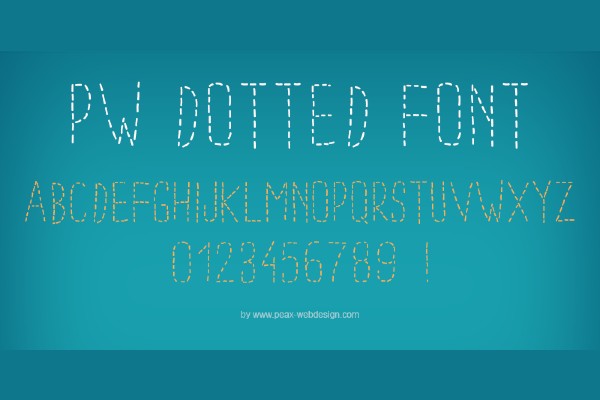
Creating unique and interesting dotty-styled graphics, images and logos is easy with free online dotted font generator tool. These fun and whimsical dotted typefaces are very popular with kids and adults alike. Children can use dotted fonts to help aid in learning how to write. Adults tend to use these font-families as a part of larger projects. Whether it's used in artistic creations, comic book text, or even online text boxes, dotted fonts can be found in more places than you might think. Dotted fonts have never been easier to create thanks to our dotted logo generator tool. Creating dotted fonts by hand can be a real pain, luckily we have the internet now which makes things much easier. Give the tool below a try, it's free and easy to use even for novice designers.